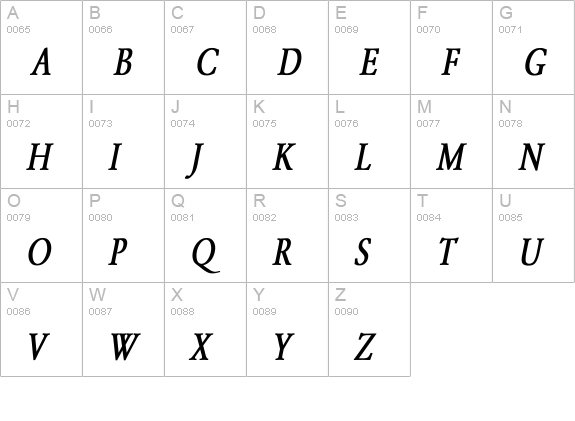
Garamond-Normal Condensed Bold Italic is the standard, neutral, condensed-width, italic variant in the Garamond typeface family \xE2\x80\x94 well suited to general body text, paragraphs, and standard typographic work.
The Garamond-Normal Condensed Bold Italic font exudes elegance and sophistication with its sleek design and bold italic styling. This versatile typeface is perfect for adding a touch of flair to any design project, from business cards to posters. With its condensed form, Garamond-Normal Condensed Bold Italic is ideal for fitting more text into limited spaces without compromising on readability. The bold weight adds emphasis and impact, making your text stand out on the page. Best of all, this exquisite font is available for free download at FontsMarket.com. Whether you're a seasoned designer looking to enhance your projects or a beginner exploring the world of typography, Garamond-Normal Condensed Bold Italic is a must-have addition to your font collection. Elevate your designs with this timeless and stylish typeface today!